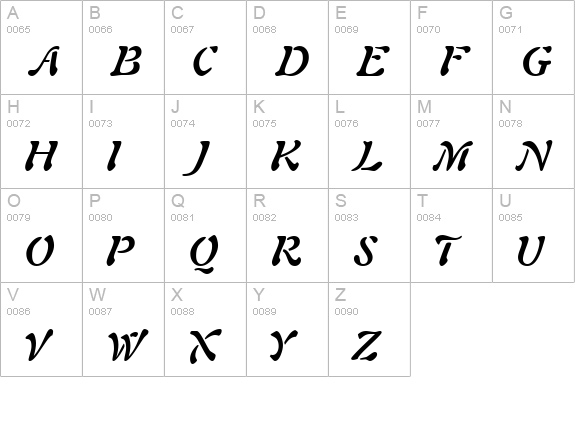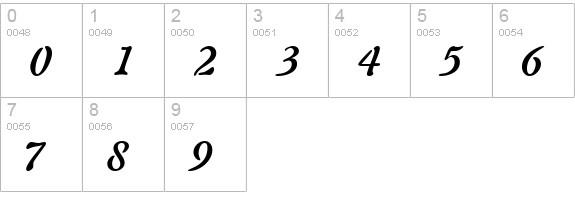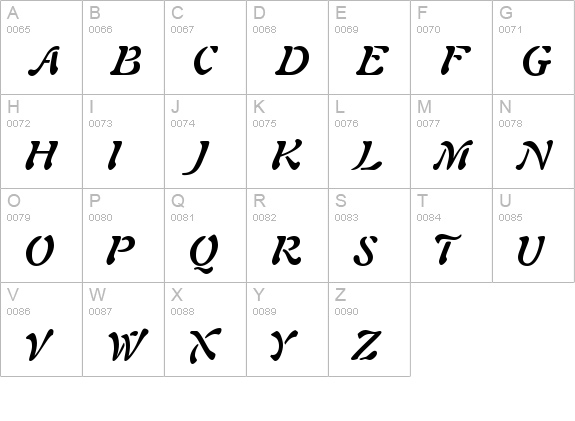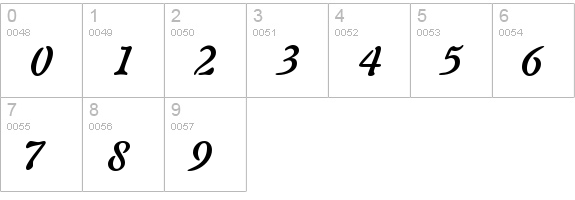
ParielSSK Bold Italic Font Details
ParielSSK Bold Italic is a strong, high-contrast, italic variant in the ParielSSK typeface family \xE2\x80\x94 well suited to headlines, attention-grabbing titles, and strong calls-to-action.
Introducing ParielSSK Bold Italic, a captivating and versatile font that effortlessly combines elegance with a touch of modernity. This font is a true testament to the art of typography, as it effortlessly captures attention with its bold and striking appearance. ParielSSK Bold Italic exudes confidence and sophistication, making it the perfect choice for any project that demands a strong and impactful visual presence. Whether used for headlines, logos, advertisements, or any other creative endeavor, this font is guaranteed to leave a lasting impression on your audience. What sets ParielSSK Bold Italic apart is its unique blend of boldness and italics, creating a sense of movement and dynamism that adds an extra layer of personality to your designs. The elegant curves and sharp edges of each letter are meticulously crafted, ensuring a seamless and visually pleasing reading experience. But the best part? ParielSSK Bold Italic is free! Yes, you read that right. This stunning font is freely available to download at FontsMarket.com. Now, you can elevate your designs without breaking the bank. So why wait? Let ParielSSK Bold Italic be the driving force behind your creative vision. Download it today and unleash the full potential of your designs with a font that speaks volumes.